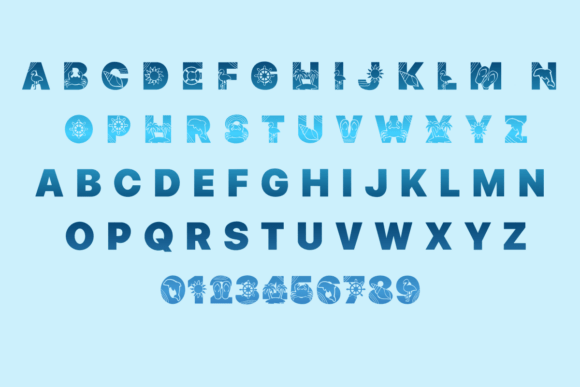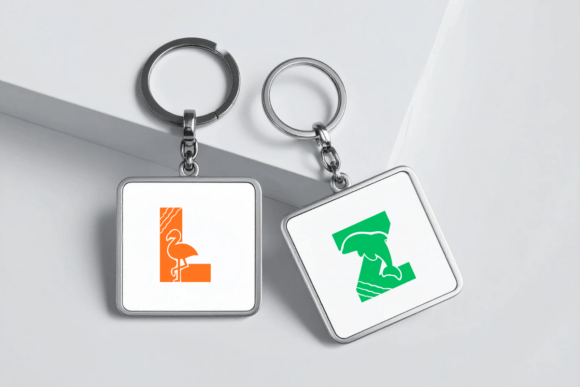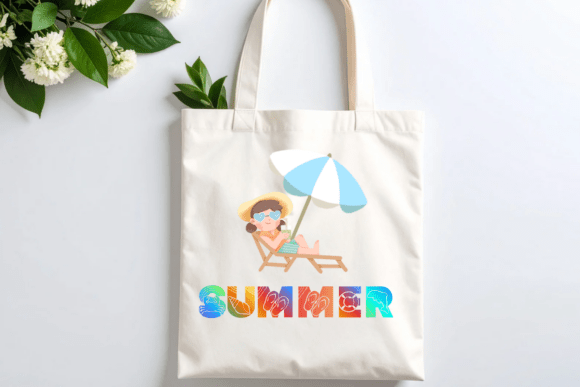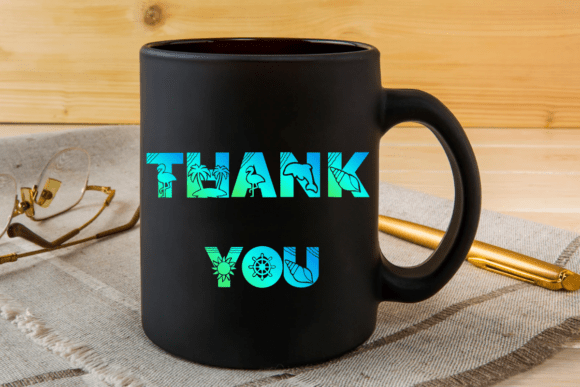
Introducing Happy Summer Font: The Perfect Addition to Your Creative Projects
Are you looking for a font that captures the carefree and playful spirit of summer? Look no further than Happy Summer Font, a decorative font that’s perfect for a variety of creative projects. In this article, we’ll explore the features and uses of Happy Summer Font, and show you how to make the most of this beautiful and versatile font.
What is Happy Summer Font?
Happy Summer Font is a decorative font designed to evoke the feeling of a warm summer day. Its playful and carefree design makes it perfect for a wide range of creative projects, from personal notes and greeting cards to social media posts and professional designs.
Key Features of Happy Summer Font
- Playful and Decorative Design: Happy Summer Font features a unique and decorative design that’s perfect for adding a touch of summer fun to your projects.
- Highly Versatile: This font can be used for a wide range of projects, from personal notes and greeting cards to social media posts and professional designs.
- Easy to Read: Despite its decorative design, Happy Summer Font is easy to read and understand, making it perfect for use in body text and captions.
Uses for Happy Summer Font
Happy Summer Font is a versatile font that can be used for a wide range of creative projects. Here are some ideas to get you started:
- Notes and Journals: Use Happy Summer Font to add a touch of personality to your notes and journals.
- Greeting Cards: Create beautiful and unique greeting cards for special occasions like birthdays, holidays, and weddings.
- Banners and Signs: Use Happy Summer Font to create eye-catching banners and signs for parties, events, and promotions.
- Social Media Posts: Add a touch of summer fun to your social media posts with Happy Summer Font.
- Mugs and Water Bottles: Create custom mugs and water bottles with Happy Summer Font for a unique and personalized gift.
- Shirts and Apparel: Use Happy Summer Font to create custom shirts and apparel for special occasions or everyday wear.
- Stationery and Paper Crafts: Add a touch of summer fun to your stationery and paper crafts with Happy Summer Font.
Tips for Using Happy Summer Font
Here are some tips for getting the most out of Happy Summer Font:
- Use it Sparingly: Happy Summer Font is a decorative font, so use it sparingly to add emphasis and interest to your designs.
- Experiment with Colors: Try pairing Happy Summer Font with different colors and textures to create unique and eye-catching designs.
- Mix and Match with Other Fonts: Combine Happy Summer Font with other fonts to create interesting and dynamic designs.
Happy Summer Font is a beautiful and versatile font that’s perfect for a wide range of creative projects. Its playful and decorative design makes it ideal for adding a touch of summer fun to your designs. Whether you’re a designer, crafter, or simply someone who loves to create, Happy Summer Font is a great addition to your font collection.
Get Creative with Happy Summer Font!